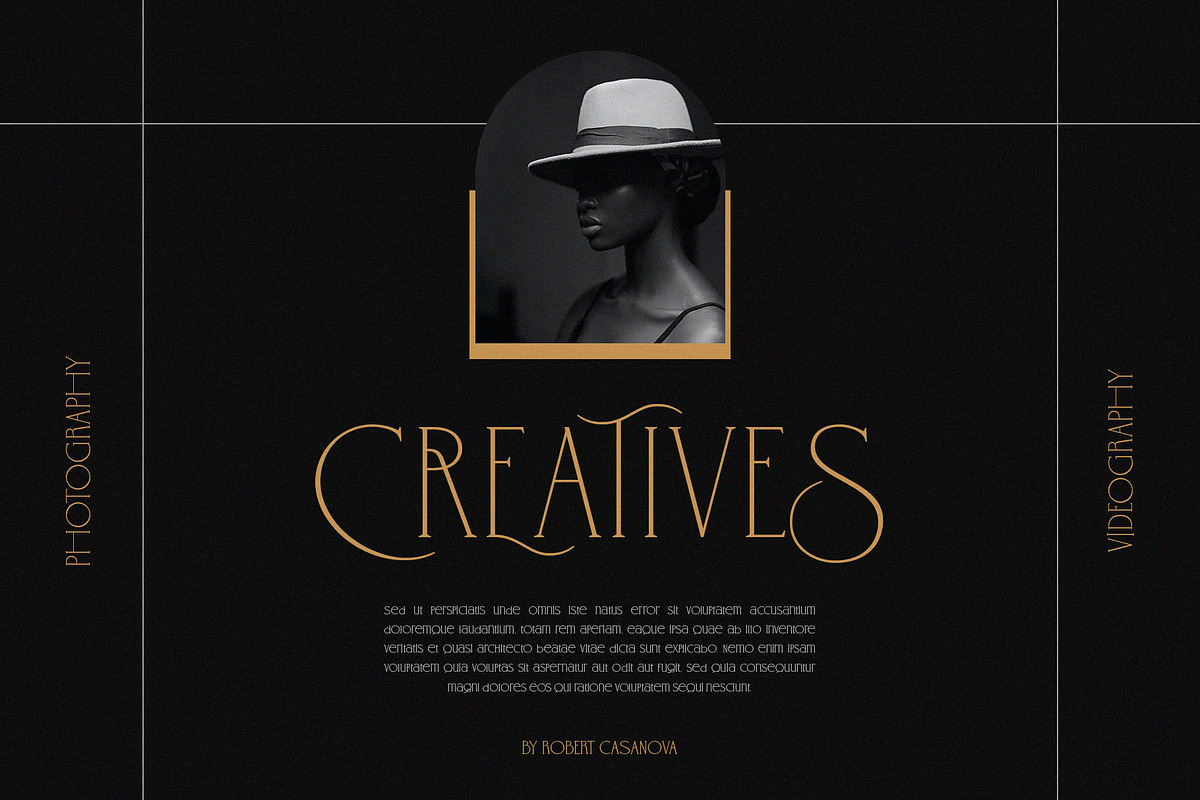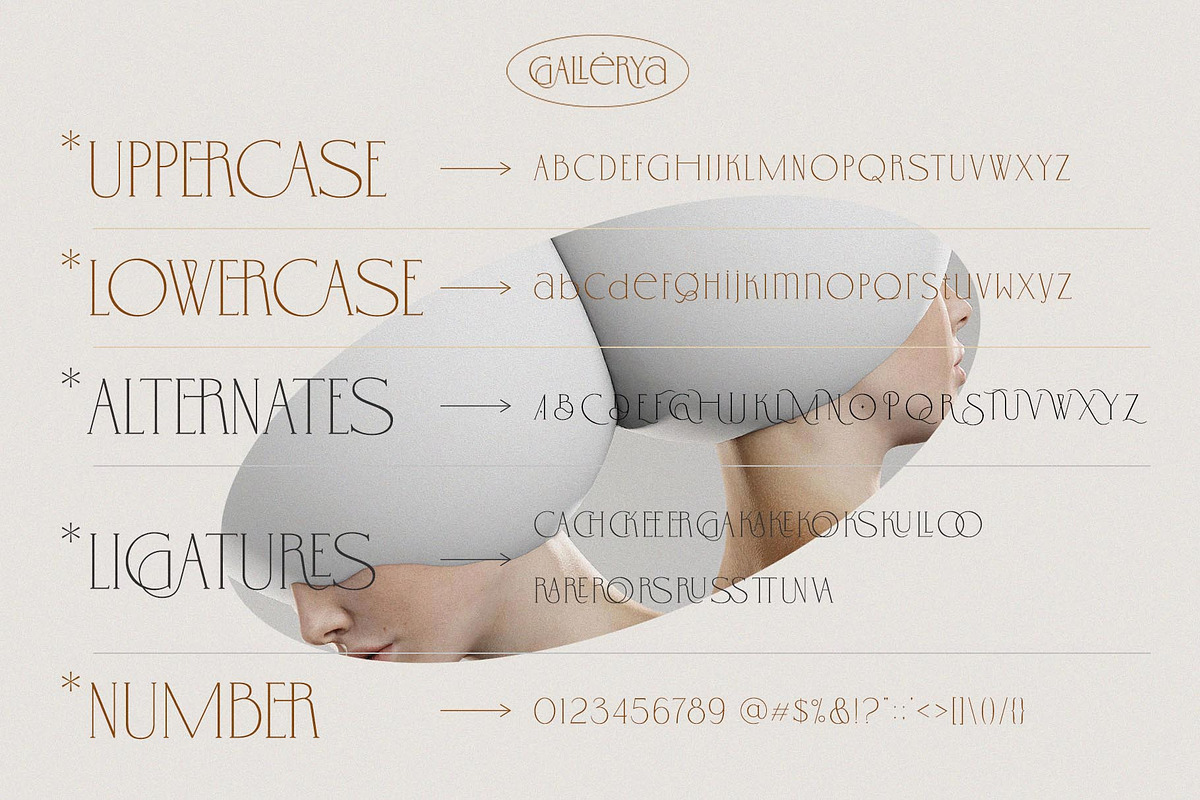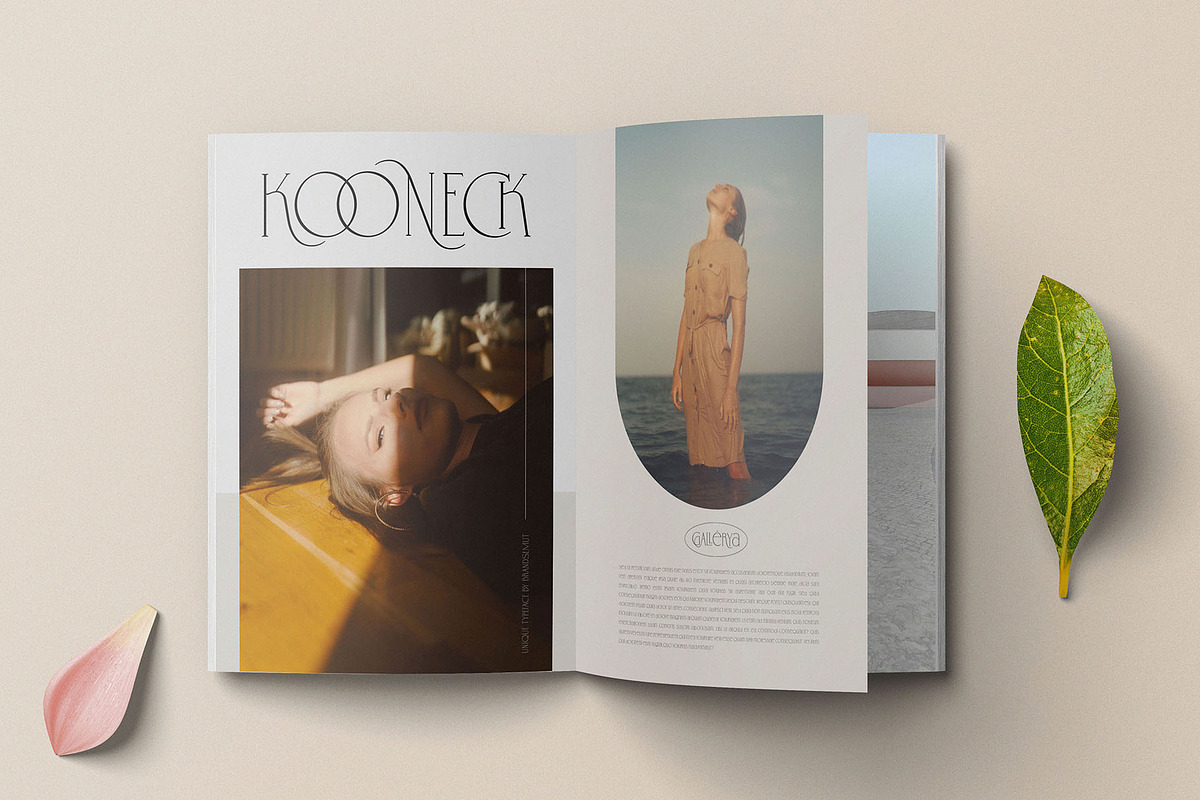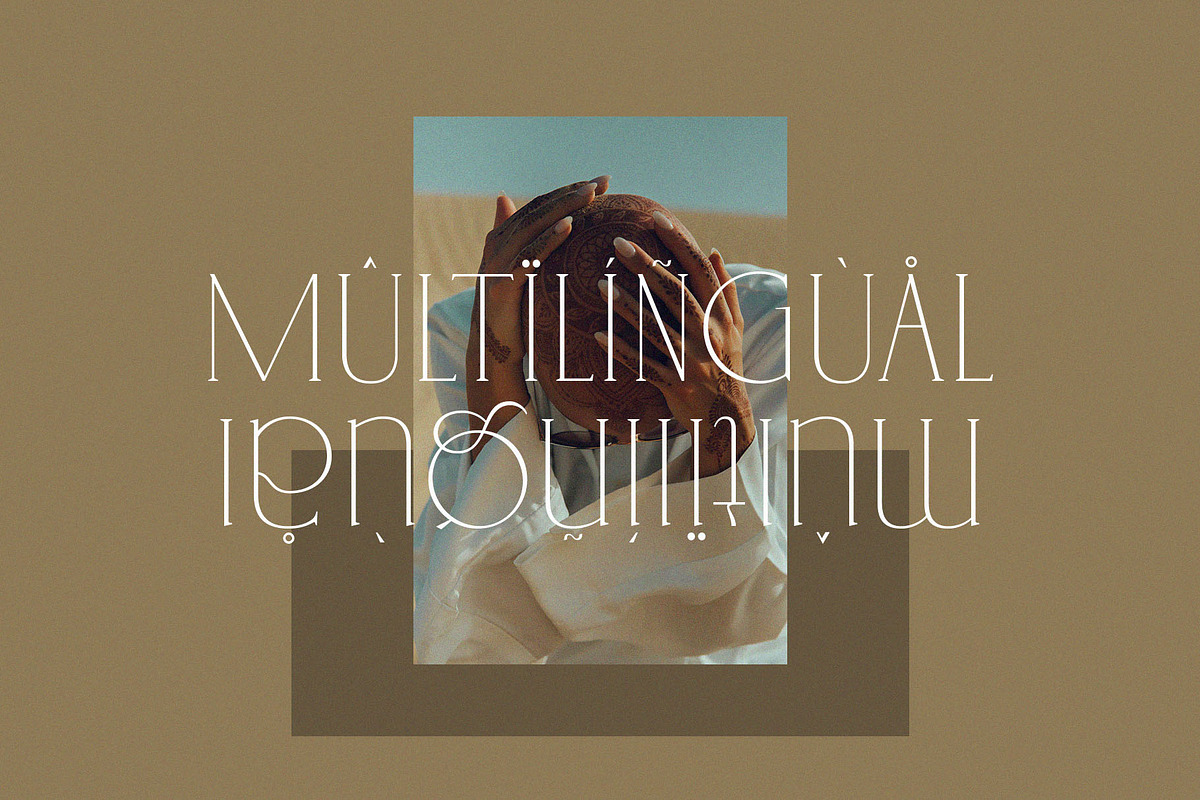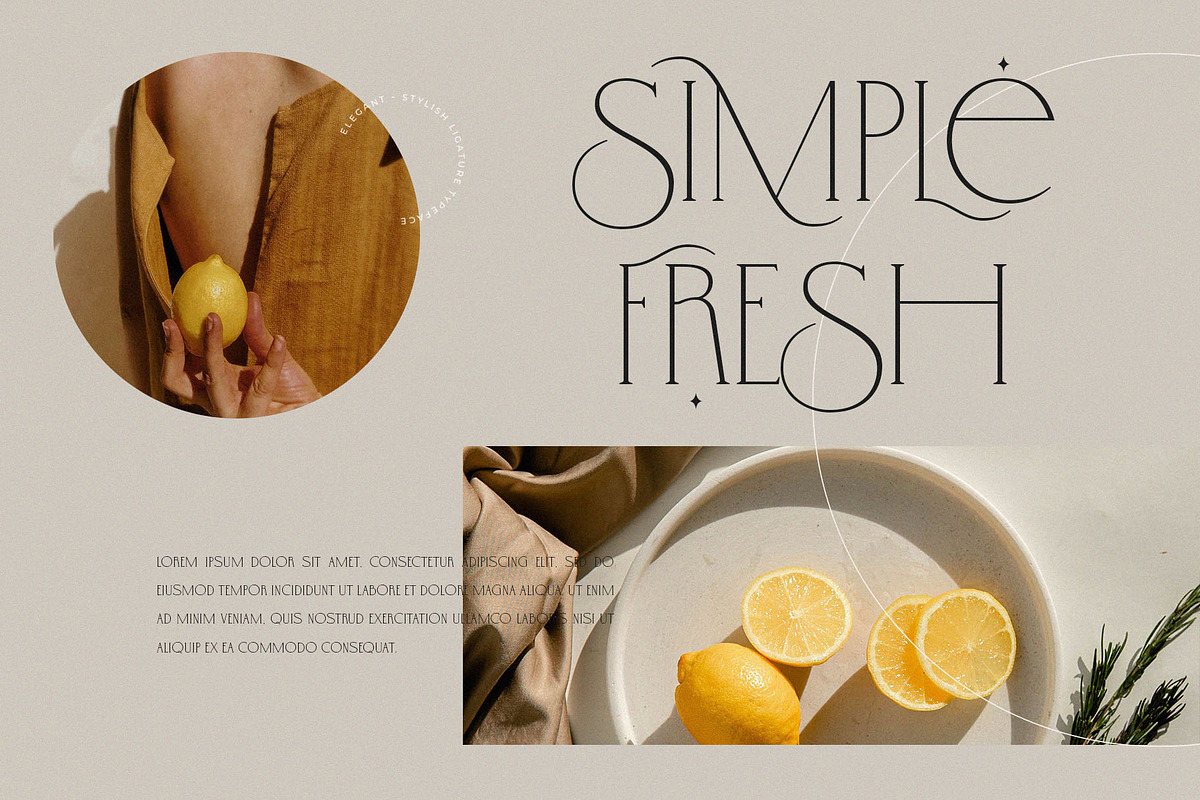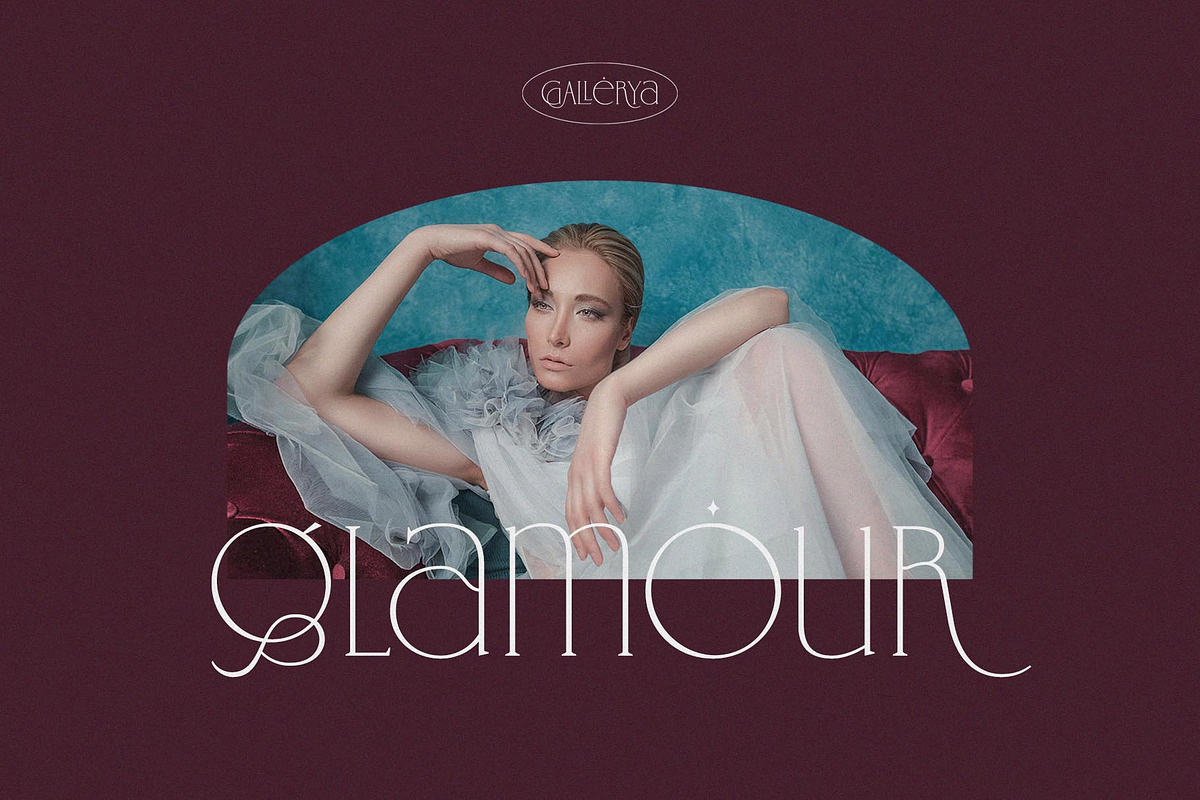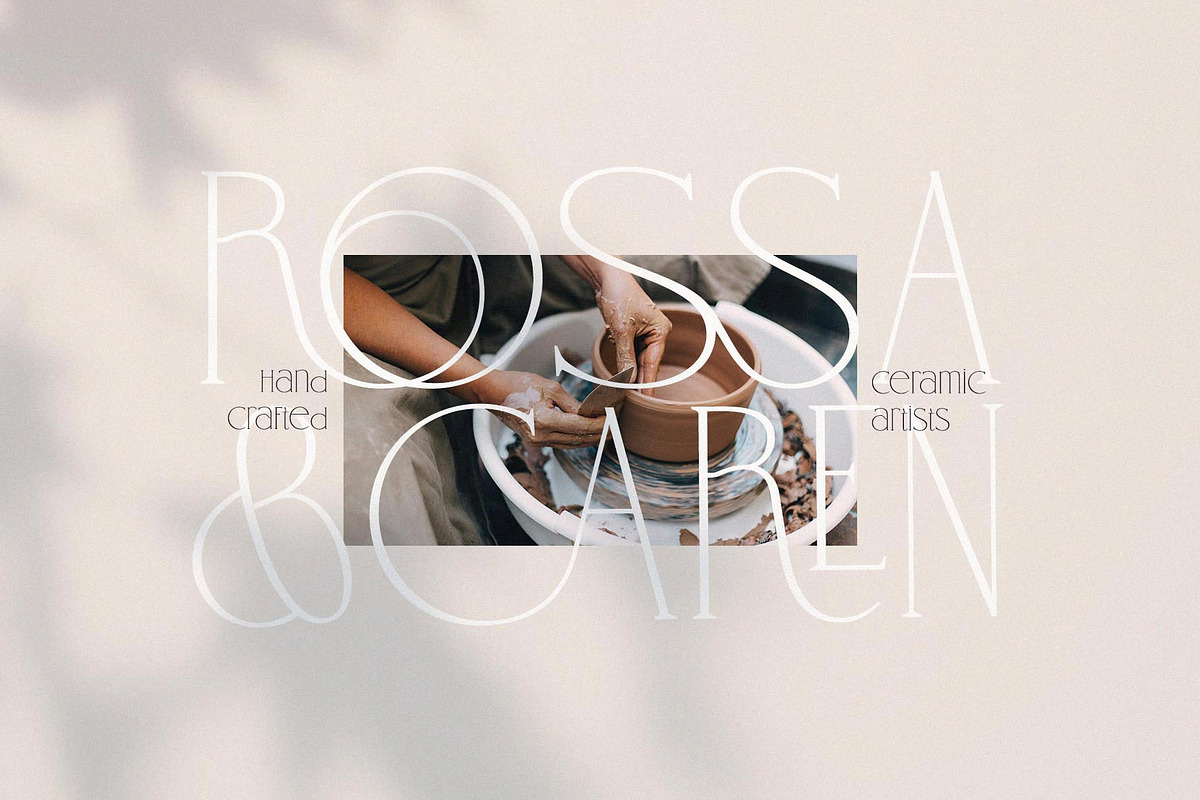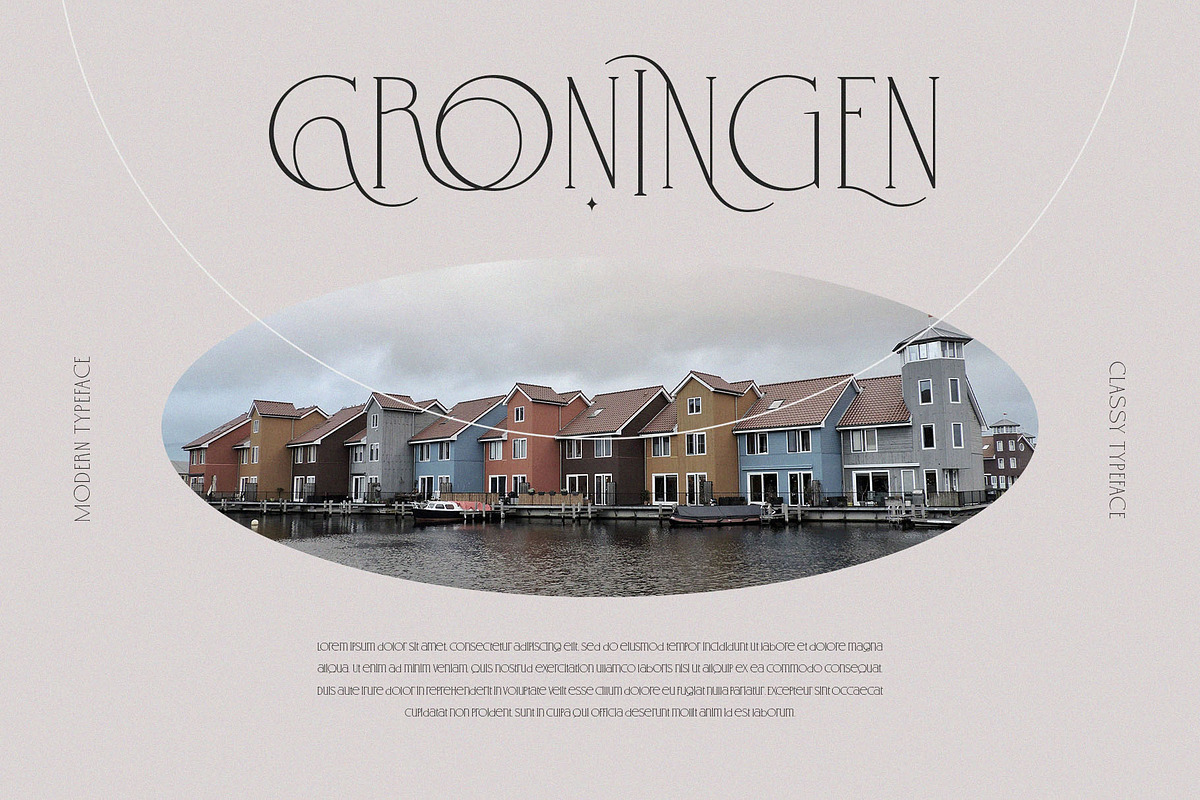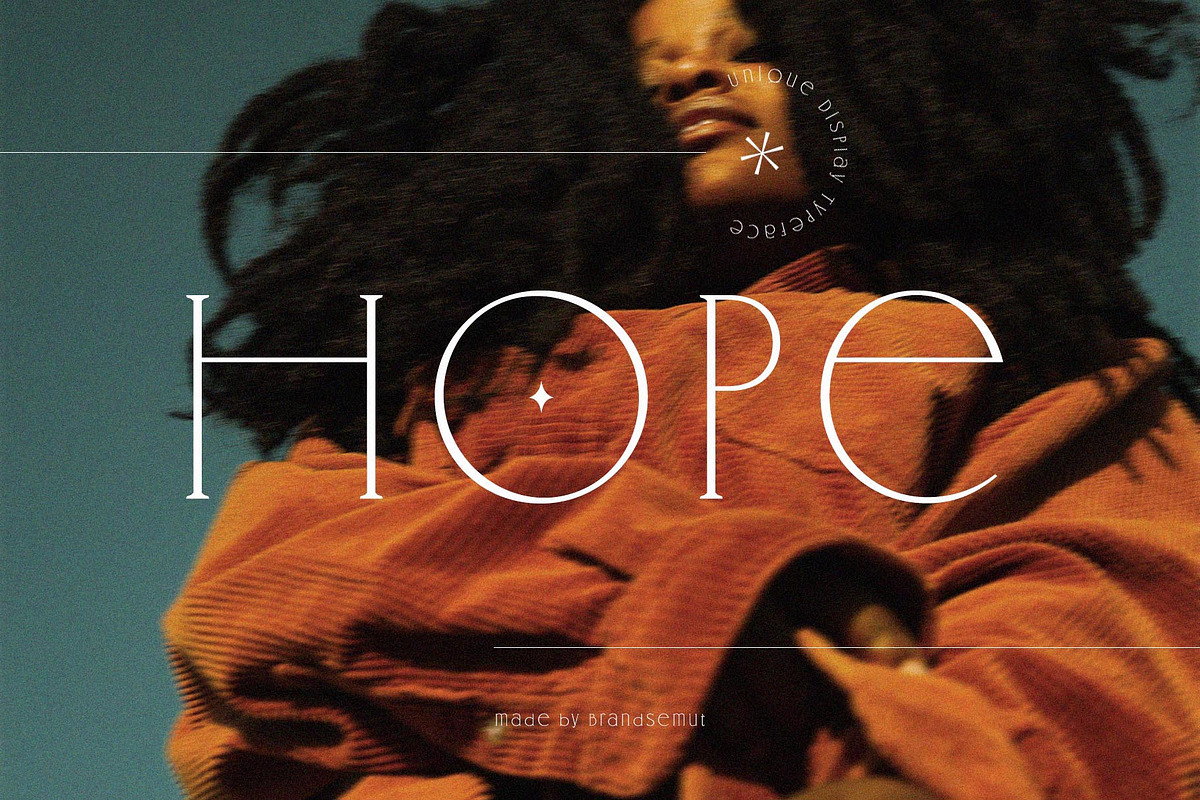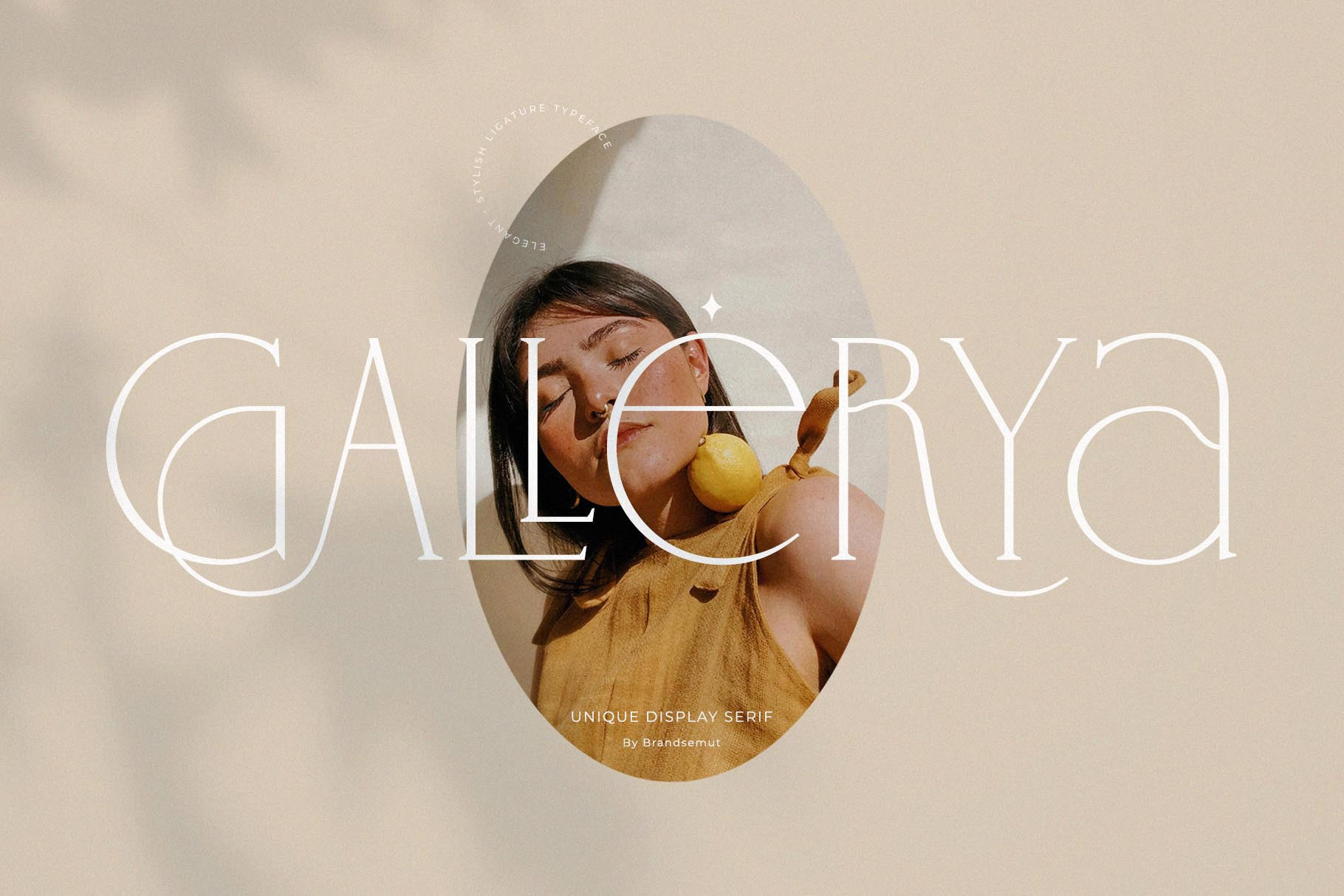
Gallerya - Unique Ligature Typeface
Introducing our new "Gallerya", Modern ligature typeface with Unique, Classy and Stylish. Is perfect for branding, logos, invitation, master heads, and more.
Gallerya Features :
- Multilanguage